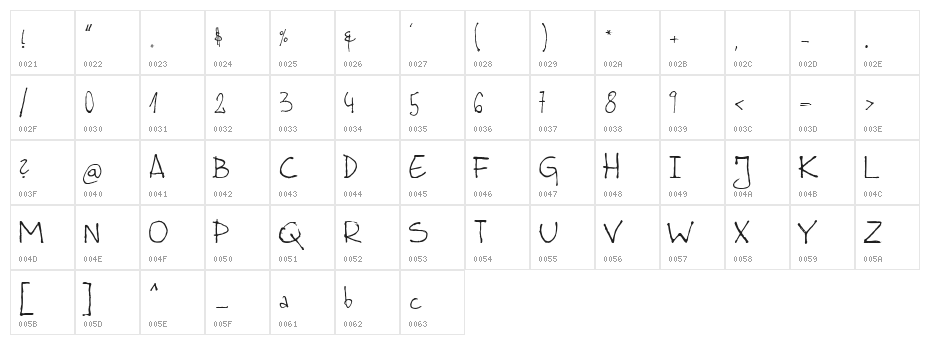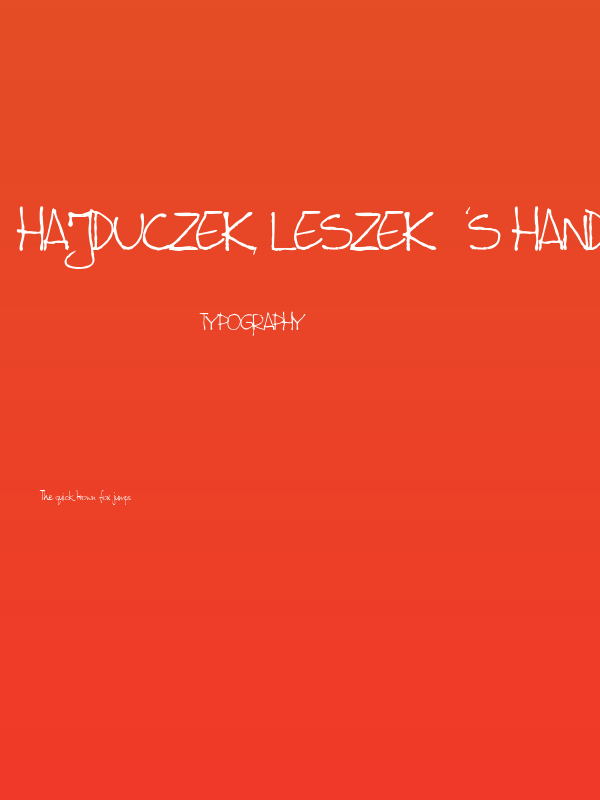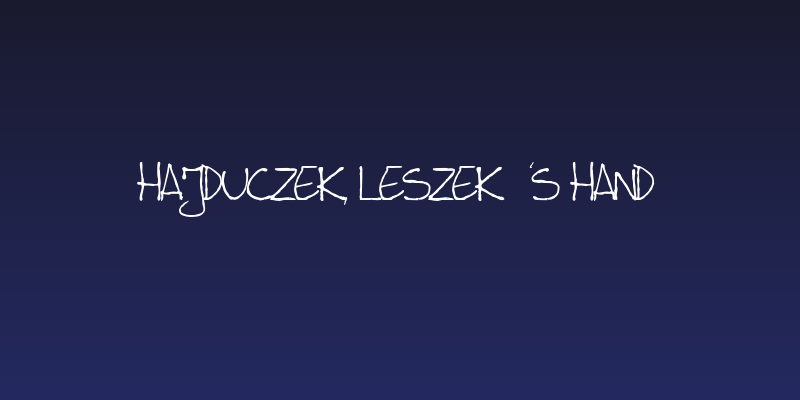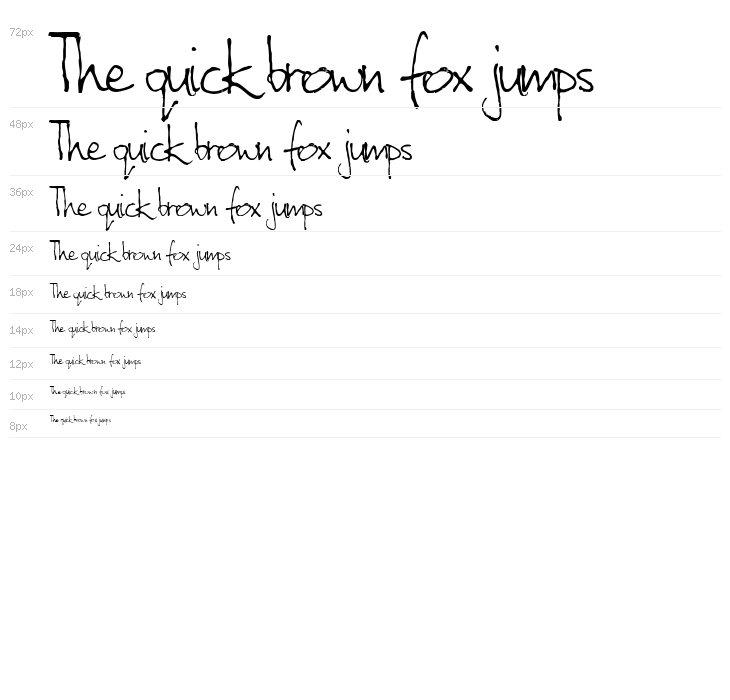
Hajduczek, Leszek's hand Font
Hajduczek, Leszek's hand Description
This font exhibits a unique handwritten style, characterized by its irregular and organic strokes that mimic the appearance of ink on paper. The letters are slightly uneven, giving a personal and informal touch. The uppercase characters are bold and prominent, while the lowercase letters maintain a consistent flow with a slightly narrower form. Numbers and special characters follow the same handwritten aesthetic, adding to the cohesive look. The overall design is reminiscent of casual handwriting, making it suitable for projects that require a personal or artistic flair.
| Overall Style | Casual, Artistic |
| Use Case | Logos, Greeting cards, Personal notes |
| Proposed Projects | Ideal for personal notes, artistic projects, greeting cards, and informal branding. |